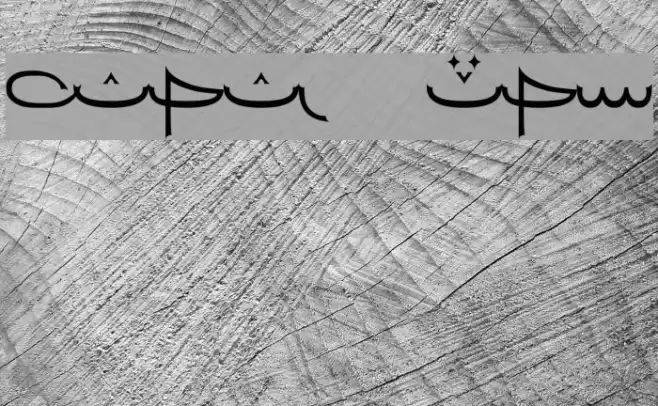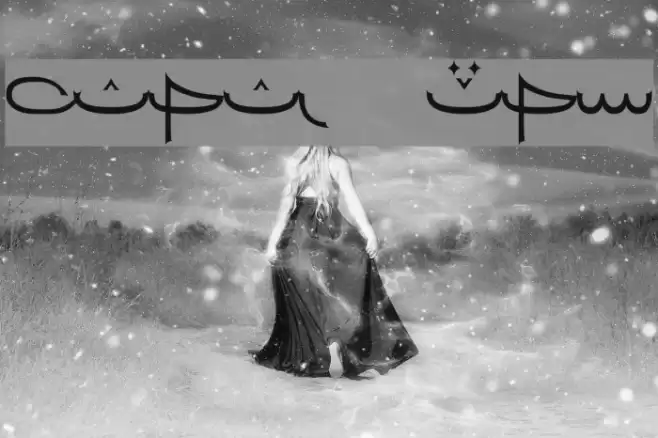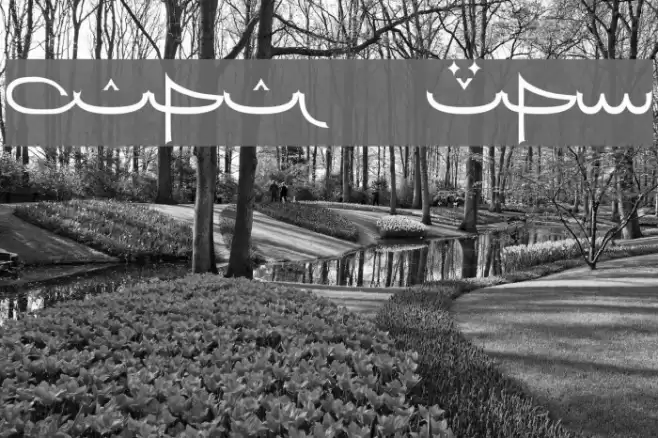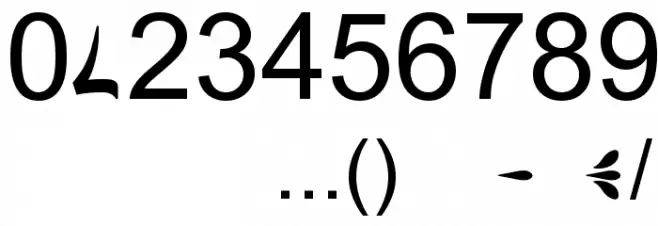
Tanar Font
Tanar Description
This font features a unique blend of traditional Arabic script with a modern twist. The characters are elegantly curved, with a smooth flow that maintains readability while adding a touch of sophistication. The numerals are bold and clear, making them stand out distinctly. Special characters are designed with a minimalist approach, ensuring they complement the overall aesthetic without overpowering the text. The font's balance between traditional and contemporary elements makes it versatile for various design needs.
A modern Arabic script font with elegant curves and clear numerals from Uncategorized fonts.